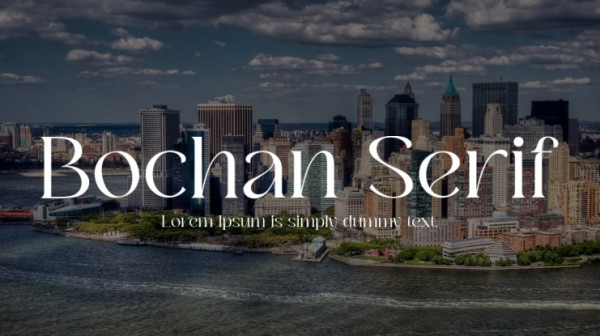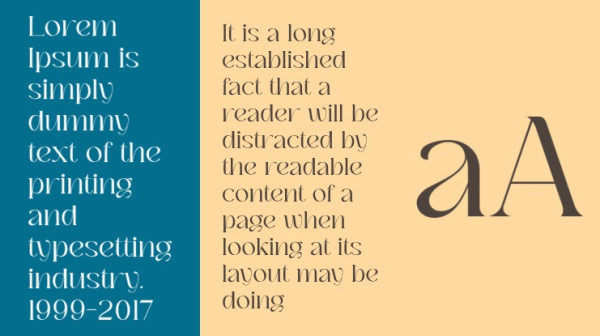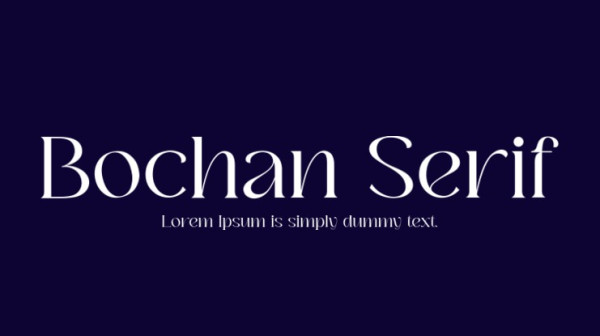
Bochan Serif Font
Bochan Serif Font, with serif version font that will add a timeless look to any design project!. Very suitable for logo, brand identity pack, packaging designs and many more..